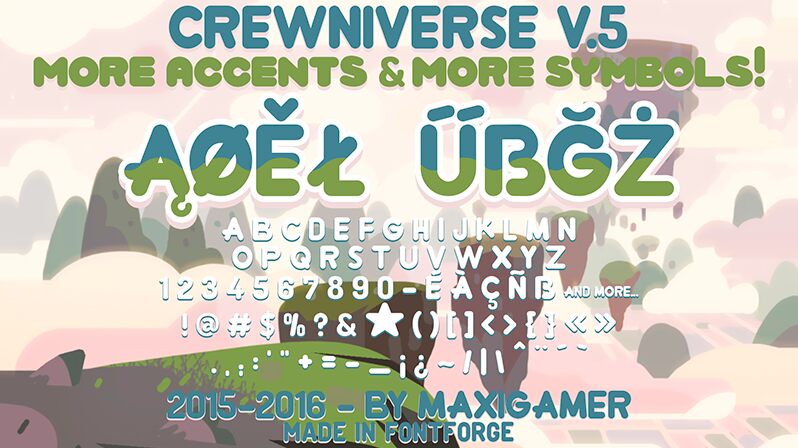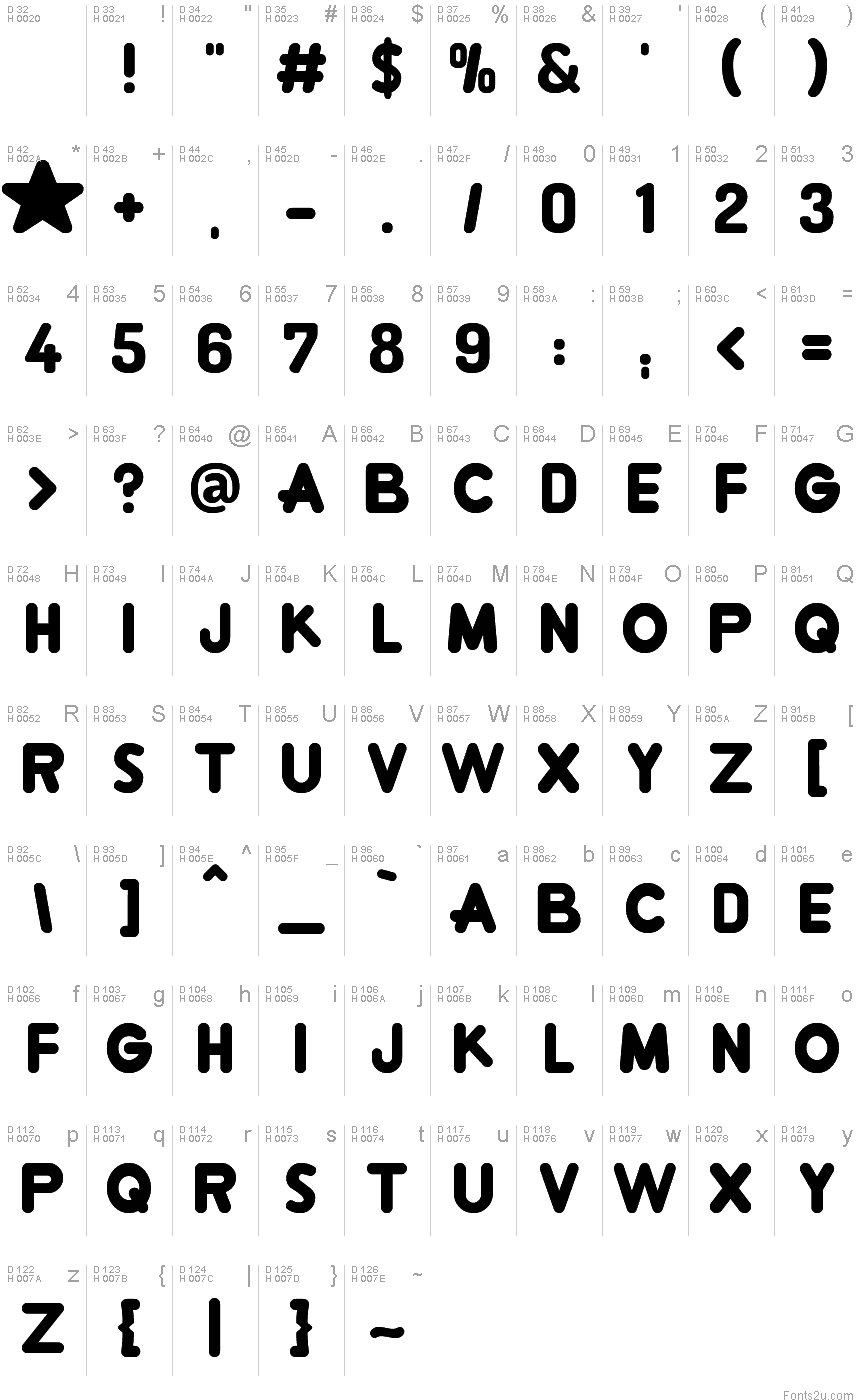
Crewniverse
Crewniverse V.5
Crewniverse is a font that replicates the one used for the title cards of the TV show Steven Universe, as well as the logo of the Steven Crewniverse's Tumblr.